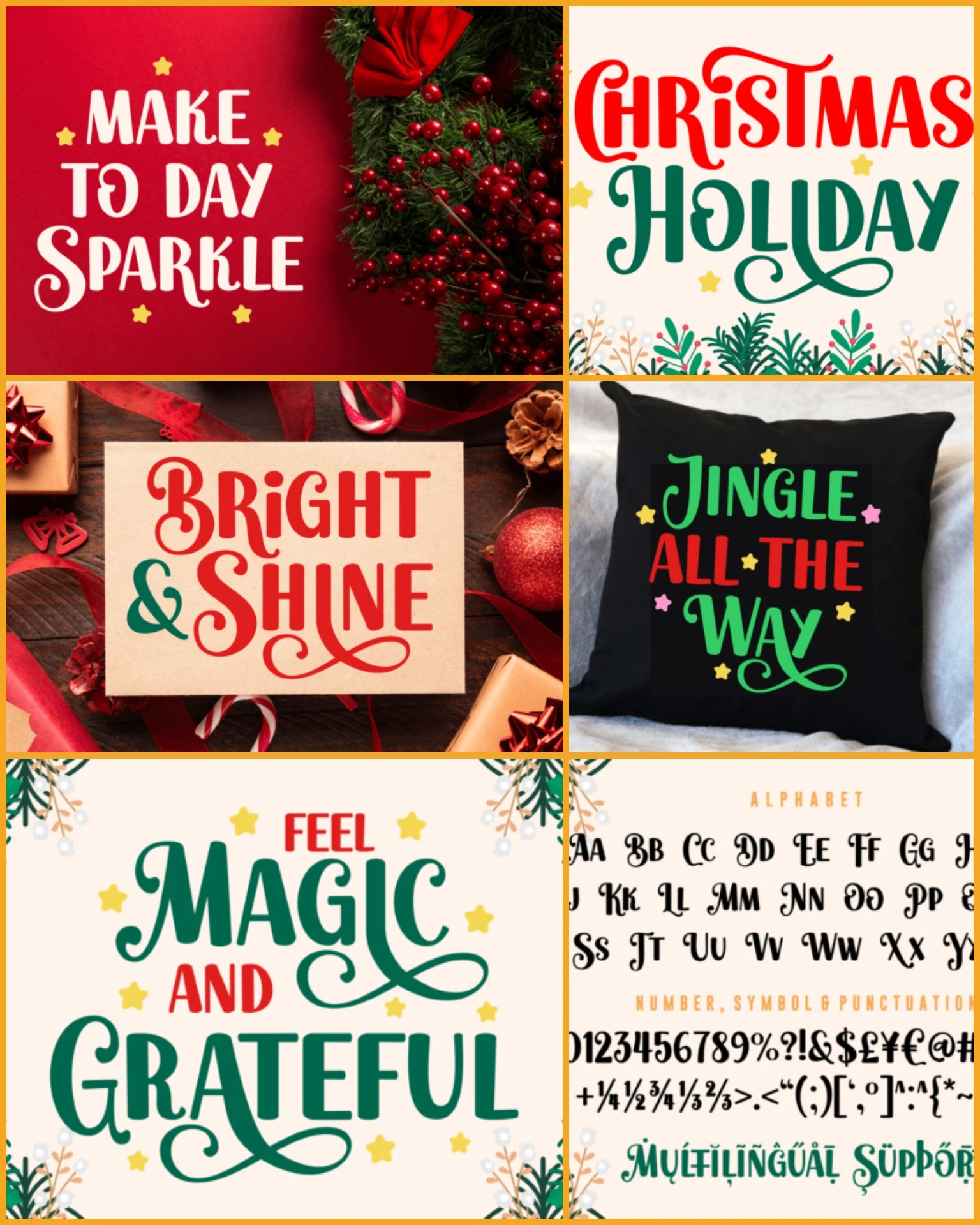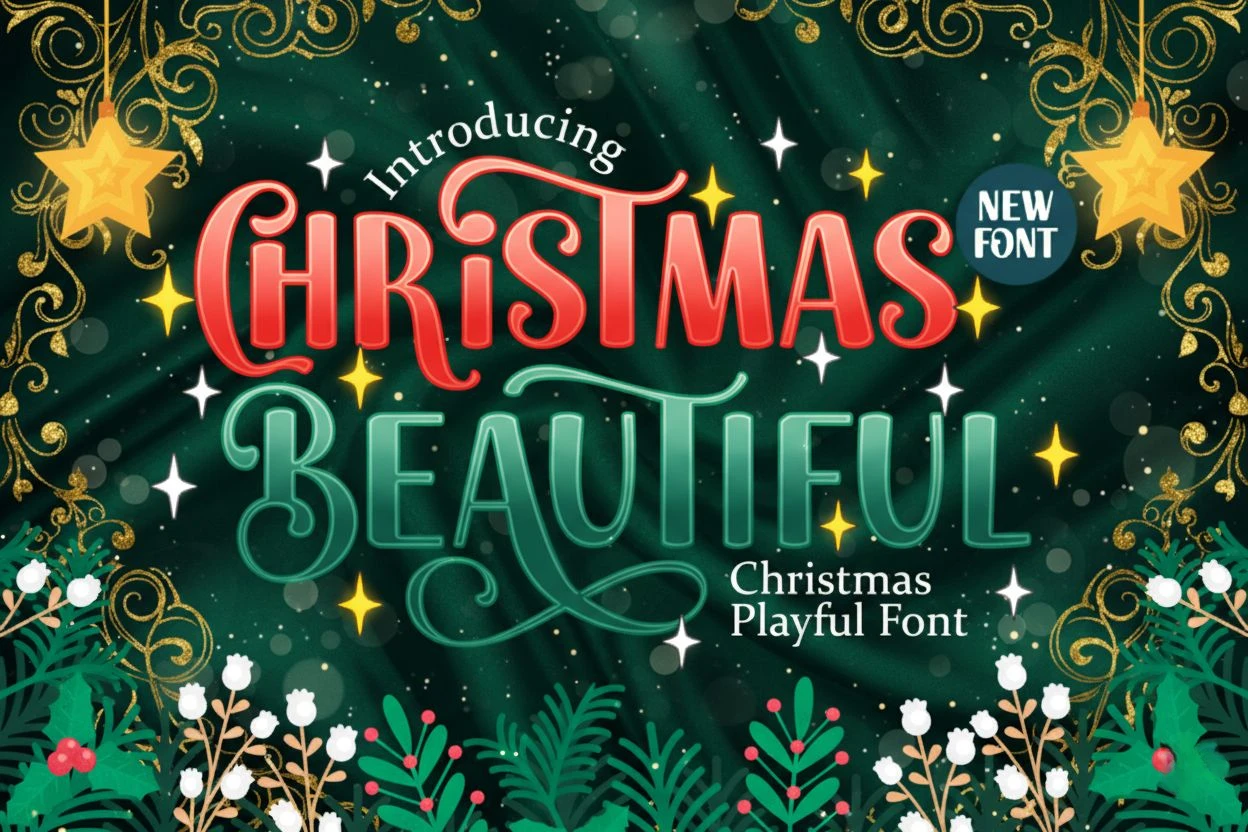
Christmas Beautiful is a joyful and playful Christmas font designed to bring holiday magic to all your creative projects. This festive typeface features charming swashes, smooth curves, and decorative details that make every design feel warm, cheerful, and full of seasonal spirit.
Perfect for Christmas cards, holiday decorations, social media graphics, gift tags, stickers, quotes, and Cricut or Silhouette crafts, this whimsical display font captures the fun and enchantment of the winter season.
Christmas Beautiful is PUA encoded, giving you easy access to all alternates, ligatures, and decorative glyphs—making customization effortless for designers, crafters, and DIY creators.
Whether you’re designing for kids, creating festive branding, or decorating products for the holiday marketplace, this Christmas font adds a magical, bright, and stylish touch to every project.